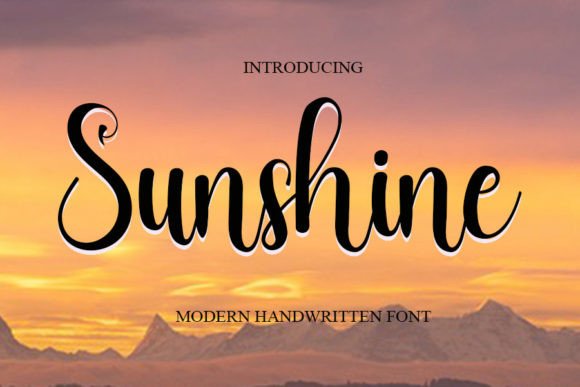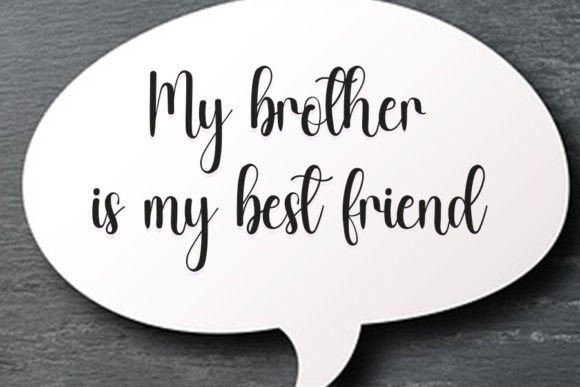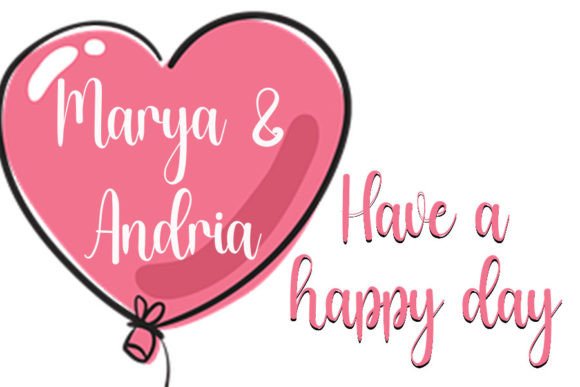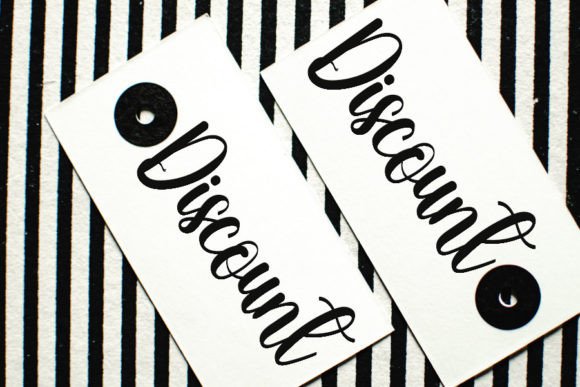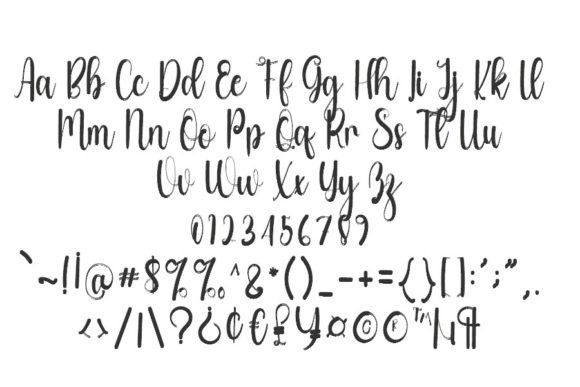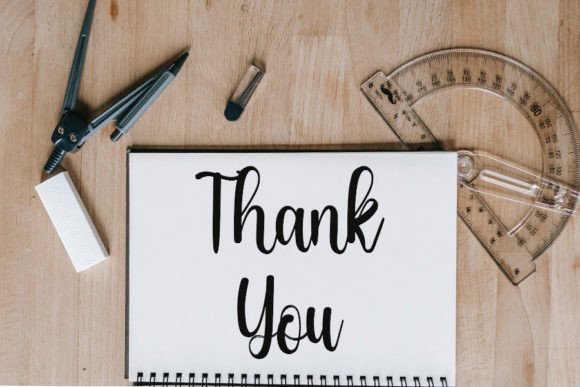
Sunshine Font
About Sunshine Font
Sunshine Font is a neat and beautiful handwritten typeface that brings an elegant and timeless touch to your creative projects. Its distinct style adds sophistication and charm, making it an excellent choice for logos, invitations, branding, and more. Sunshine helps you create spectacular designs that stand out with grace and personality.
Elegant and Timeless Design
Sunshine features smooth, flowing strokes and well-balanced letterforms that blend clarity with style. Its elegant appearance suits a wide range of uses, from formal branding to personal stationery. The font’s timeless look ensures your projects stay stylish and relevant over time.
Ideal Uses for Sunshine Font
This font is ideal for:
• Wedding invitations and save-the-date cards
• Logos and brand identities
• Editorial layouts and magazine designs
• Social media graphics and digital marketing
Its elegant style enhances any design with sophistication.
Why Choose Sunshine Font?
Designers appreciate Sunshine for its:
• Neat and elegant handwritten letterforms
• Distinctive and timeless style
• Versatility across print and digital media
These qualities make Sunshine a practical and beautiful font choice.
Add Charm and Elegance to Your Designs
Typography sets the mood and emotion of your project. Sunshine adds warmth, elegance, and personality to your work. Whether for weddings, branding, or editorial content, this font helps create an inviting and refined atmosphere.
In conclusion, Sunshine Font is an elegant and timeless handwritten script perfect for designers seeking a classic and stylish font. Add Sunshine to your font library to elevate your creative projects with charm and grace.